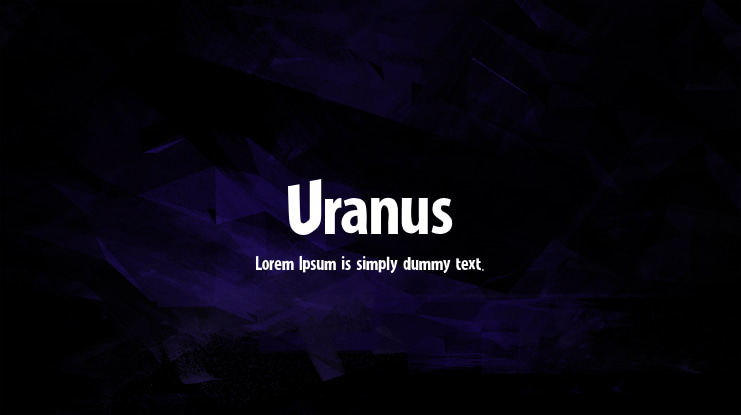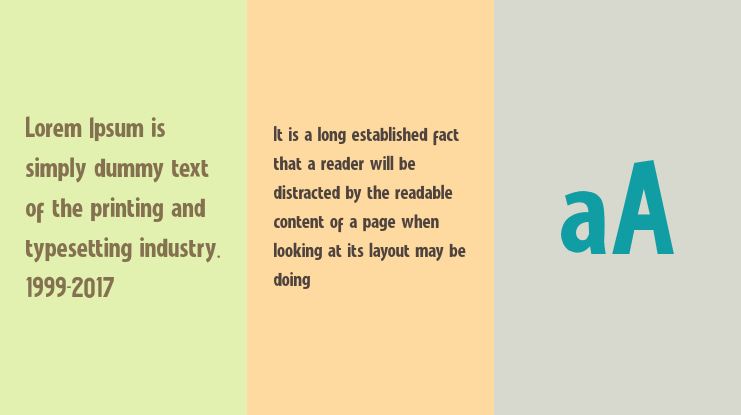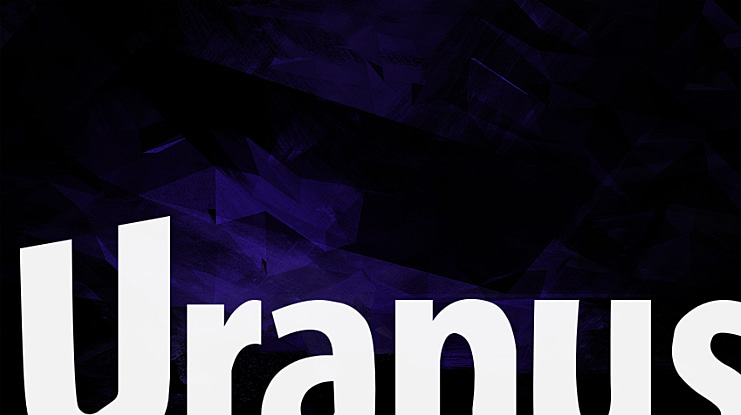
Uranus Font
Introducing our new release, Uranus Elegant Display Font. This typeset is perfect for brand logo, invitations, greeting card, or even any kind of project. With multilingual feature and style variations, this typeface would further enhance the aestethical aspect of your work.Visit our website :https://displaytypefont.com/product/uranus/